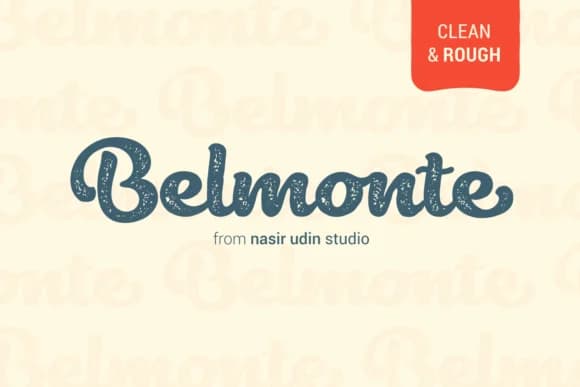
Belmonte by Nasir Udin is a hand-lettered script font with a playful, bold personality that brings warmth and organic character to any design. With its rounded letterforms and friendly demeanor, Belmonte carries an inviting quality that works beautifully across diverse applications and design contexts. The font includes multiple alternate lowercase letters and an extensive collection of swash variations, allowing designers to customize their typography and create truly personalized compositions with visual impact. The rough version offers an additional textured aesthetic with authentic vintage sensibilities that appeals to brands embracing period-conscious design philosophies.
This typeface excels in food and beverage branding, where its organic feel aligns naturally with consumer expectations for artisanal products and craft-focused businesses. Specific applications include bakery product labels, specialty coffee packaging, organic snack branding, and boutique restaurant menus looking to establish a warm, approachable brand identity. Beyond culinary contexts, Belmonte performs equally well for business card design, poster layouts, and editorial headlines that require personality and visual distinction. Its distinctive letterforms maintain excellent readability at all sizes, making it versatile for both digital and print projects across industries.
Belmonte Font is a script font that shines as a display or heading face. Pair it with a clean sans-serif or serif font for body text β the contrast creates a clear hierarchy while the two styles stay balanced and easy to read.